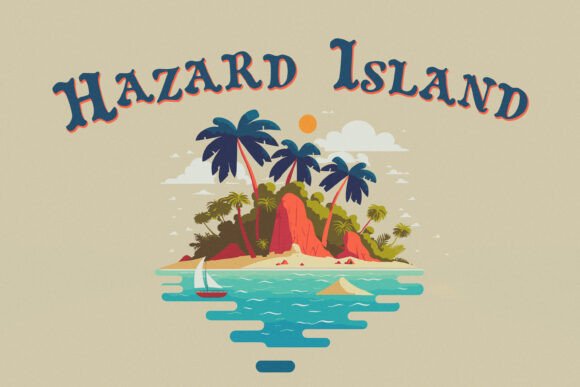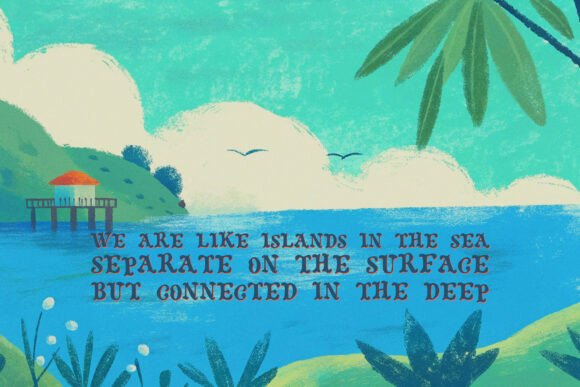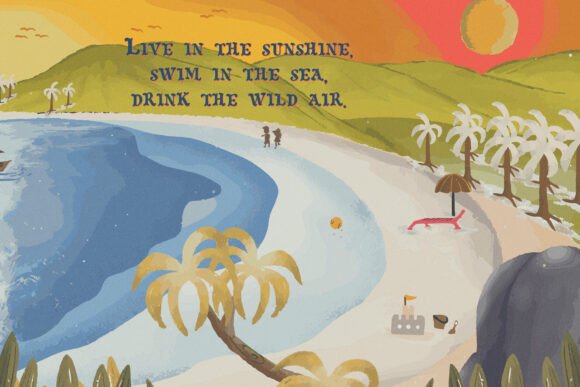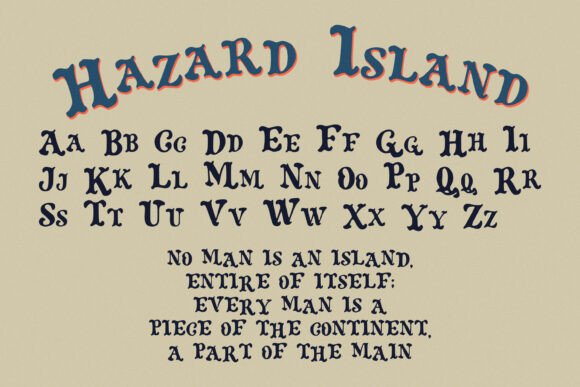
Hazard Island Font: Retro Display Font for Cricut & Nostalgic Designs
About the Hazard Island Font
The Hazard Island Font is here to transform your projects with its distinctive character and style. Introducing Hazard Island – a charmingly offbeat, buoyant .ttf font that harkens back to a more nostalgic era. Bursting with a retro flair, Hazard Island comes into its own when crafting personalized wall art, bringing sublimation designs to life, or working in harmony with a Cricut machine. Ideal for digital scrapbooking enthusiasts seeking that distinctive touch, Hazard Island owes its birth to the cutting-edge technology in AI.
Hazard Island’s playful retro style works best in headlines, short text blocks, and display applications like posters or logos. Its charm shines in branding for vintage-inspired products, boutiques, or cafes. Avoid using it for body text or UI elements; the quirky letterforms are less legible at smaller sizes or in extended passages.
This font pairs well with clean sans-serif fonts like Open Sans for a balanced contrast, or a more geometric sans-serif for a modern twist. A classic serif like Garamond could also provide elegant counterpoint, depending on the desired aesthetic.
Hazard Island possesses a cheerful, slightly whimsical personality, making it ideal for projects needing a touch of nostalgic charm without sacrificing readability in headline or display applications.
Hazard Island Font Usage Examples
Hazard Island Font Example